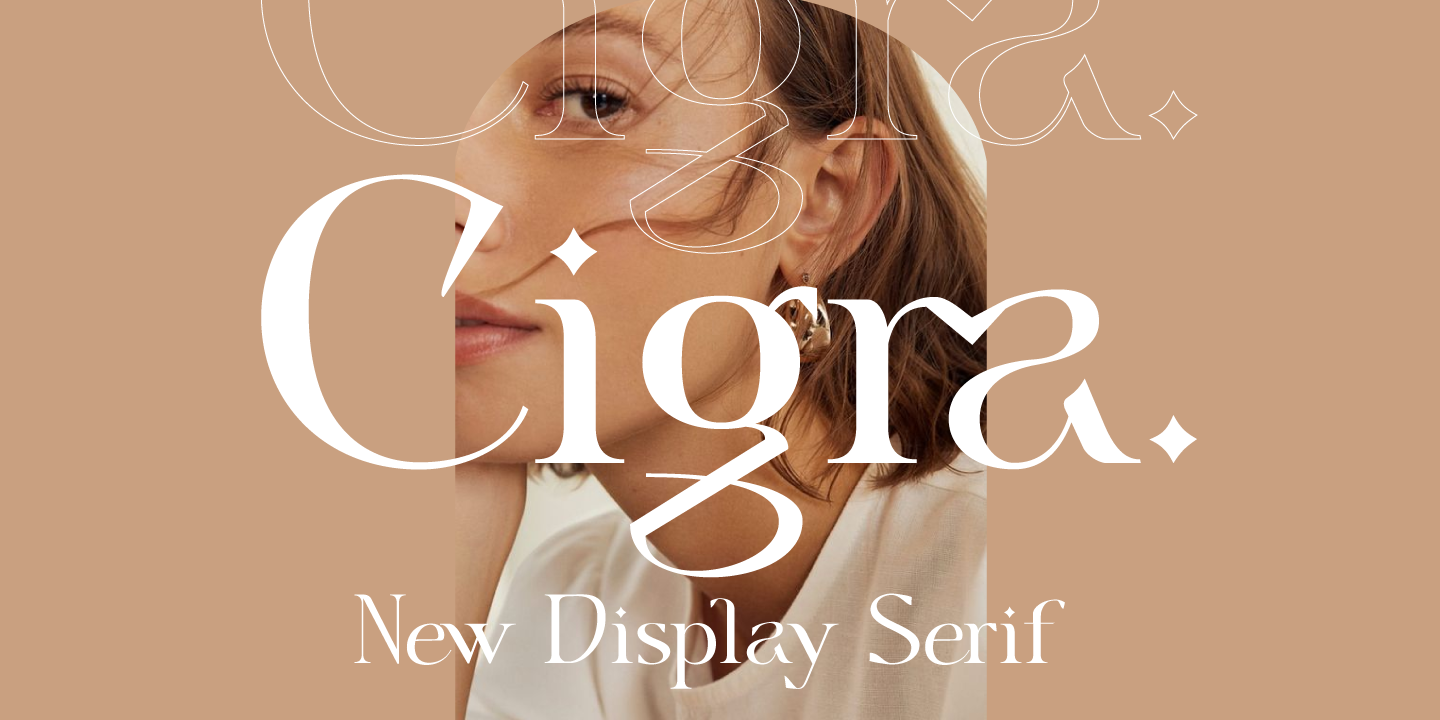
This sophisticated typeface is perfect for luxury brands, premium packaging, high-end fashion labels, exclusive restaurants, upscale hospitality, jewelry boutiques, art galleries, wine collections, gourmet food products, designer furniture, cosmetics branding, architectural studios, and refined cultural institutions. The font's elegant design makes it ideal for projects that demand sophistication, exclusivity, and timeless aesthetic appeal with distinctive character presence.
Cigra Font is exciting because it combines contemporary minimalism with classical elegance through its refined letterforms and sophisticated character structure. The font's balanced proportions and subtle curves create an atmosphere of luxury, refinement, and understated confidence, making it perfect for brands that want to convey premium quality, exclusivity, and discerning taste. Its versatile personality ensures memorable recognition while maintaining exceptional readability across various upscale applications.
The Cigra Font family includes multiple refined variations: Light Elegance, Regular Grace, Medium Poise, Bold Distinction, and Black Prestige weights, each available in standard and italic versions. Special premium editions feature stylistic alternates, elegant ligatures, and decorative elements that enhance the font's luxurious appeal, providing designers with comprehensive tools for creating truly sophisticated brand experiences.
Elevate your brand presence with Cigra Font Free Download – a typeface that embodies refined elegance and contemporary sophistication. Whether you're developing luxury branding, premium product packaging, or upscale marketing materials, this font delivers the distinguished character and timeless appeal your projects need while ensuring exceptional performance and elegant impact across all premium and luxury applications.